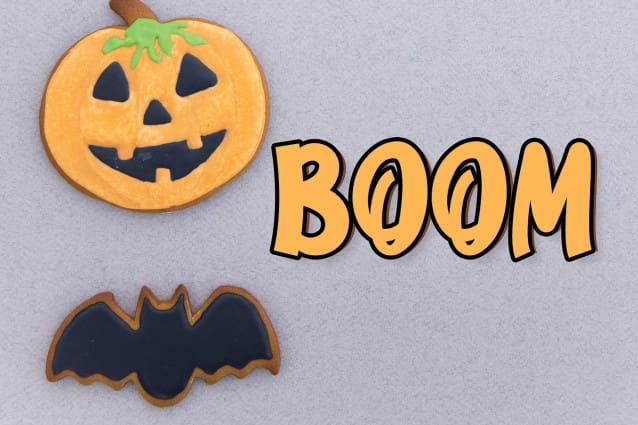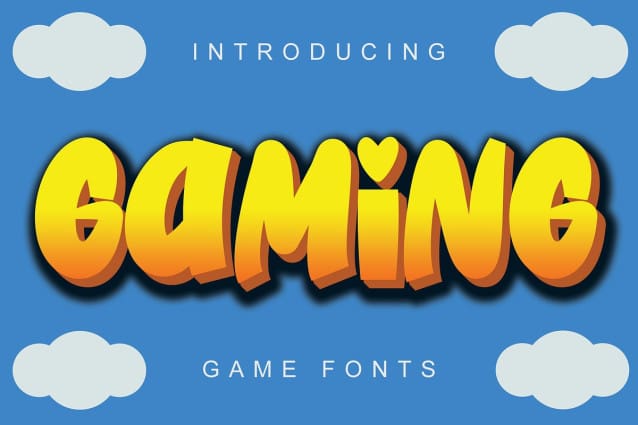
Gaming Playful Font
Gaming Playful Font, is inspired by comics, games and cartoons. The font has a very fun and cute feel to it! Get inspired by her boyish charm. Natural bold style font.
Cute and friendly typography, with a playful attitude. Great for market imaginary children’s books, online games, stationery, school supplies fonts, posters, movie titles, youtube covers, youtube thumbnails, social media page covers, cartoon titles, poster titles, magazine titles, t-shirt printing, brands designs, labels, websites and business cards as well as casual designs such as packaging, posters, flyers, quotes, social media posts, invitations, special event cards and more.